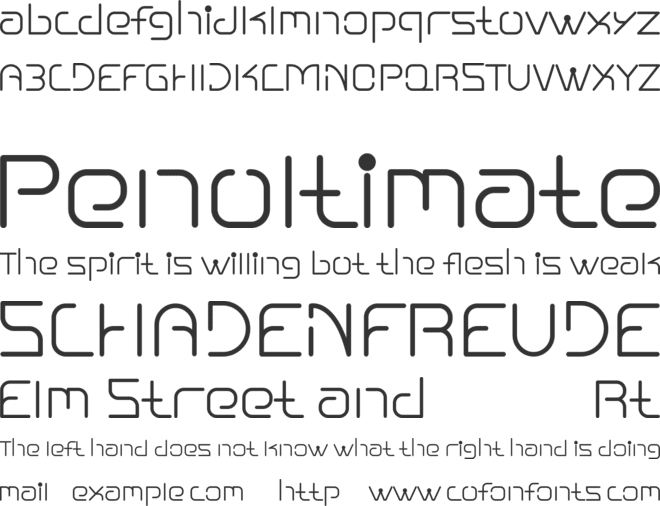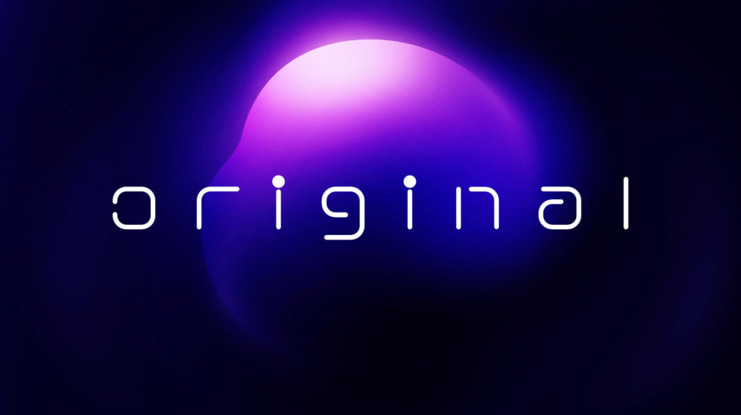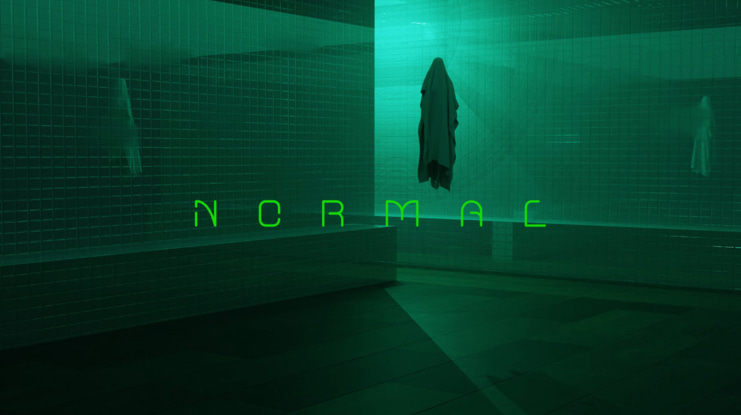
Nuixyber Pro Original Font
Crafted with precision, the Vanilla Edition stands as a testament to the purity of design. Embrace the clean lines, subtle curves, and unmatched legibility that define the essence of this special edition.
Break free from the ordinary. Let the minimalist aesthetic of the Vanilla Edition spark your creativity and elevate your design
Uncover the true essence of design with Nuixyber Pro Original Edition. Make a bold statement while keeping it simple.